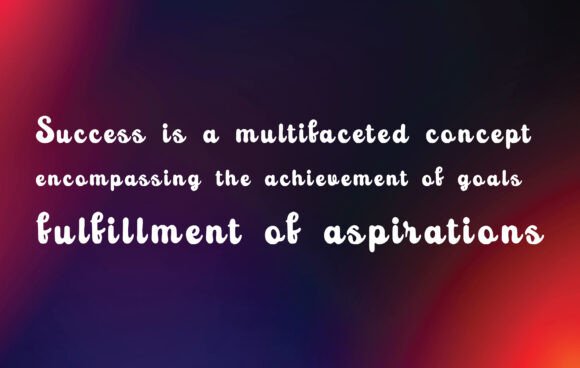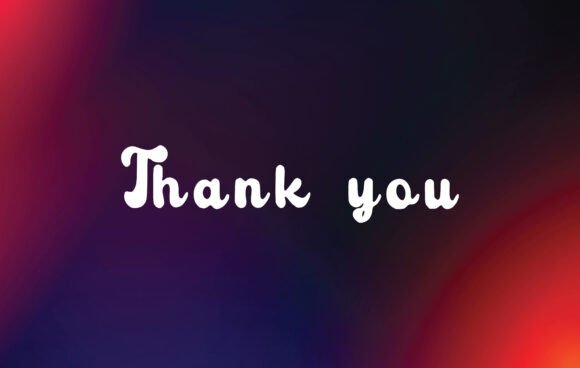
Discover the Elegance of Florence Font: Elevate Your Designs to New Heights
Are you tired of using the same old fonts in your designs? Look no further than Florence Font, a stunning typeface that is sure to become your new favorite. With its perfect blend of style, legibility, and versatility, Florence Font is the ultimate choice for designers and crafters looking to take their creative ideas to the next level.
A Font Designed for Creativity
Florence Font is designed to be a true favorite among designers, and for good reason. Its elegant and refined aesthetic makes it perfect for a wide range of applications, from magazine headlines and t-shirts to social media graphics and wedding invitations. Whether you’re working on a personal project or a client’s, Florence Font is sure to impress.
Legible and Versatile
One of the standout features of Florence Font is its exceptional legibility. Whether you’re using it as a title or body text, Florence Font is easy to read and understand, making it perfect for designs where clarity is key. Additionally, its versatility means you can use it in a variety of contexts, from formal and professional to playful and creative.
Perfect for a Wide Range of Designs
So, what can you use Florence Font for? The possibilities are endless! Here are just a few ideas to get you started:
- Magazine headlines: Add a touch of elegance to your magazine or newspaper with Florence Font.
- T-shirts and apparel: Create stylish and eye-catching designs for t-shirts, hoodies, and more.
- Social media graphics: Elevate your social media presence with Florence Font’s clean and modern aesthetic.
- Branding: Use Florence Font to create a cohesive and professional brand identity.
- Wedding invitations: Add a touch of romance and sophistication to your wedding invitations and stationery.
- Cards and stationery: Create beautiful and elegant greeting cards, thank-you cards, and more.
Why Choose Florence Font?
With so many fonts to choose from, why should you choose Florence Font? Here are just a few reasons:
- Unique and distinctive: Florence Font has a unique and distinctive style that will set your designs apart from the crowd.
- Elegant and refined: Florence Font’s elegant and refined aesthetic makes it perfect for designs where sophistication is key.
- Highly legible: Florence Font is exceptionally easy to read, making it perfect for designs where clarity is key.
- Versatile: Florence Font can be used in a wide range of contexts, from formal and professional to playful and creative.
Tips for Using Florence Font
Here are a few tips for getting the most out of Florence Font:
- Experiment with different sizes: Florence Font looks great in a variety of sizes, from large headlines to smaller body text.
- Play with colors: Florence Font looks great in a range of colors, from bold and bright to subtle and muted.
- Pair with other fonts: Florence Font pairs well with a range of other fonts, so don’t be afraid to experiment with different combinations.
In conclusion, Florence Font is a truly exceptional typeface that is sure to become a favorite among designers and crafters. With its elegant and refined aesthetic, exceptional legibility, and versatility, Florence Font is the perfect choice for a wide range of designs. Whether you’re working on a personal project or a client’s, Florence Font is sure to elevate your creative ideas to new heights.